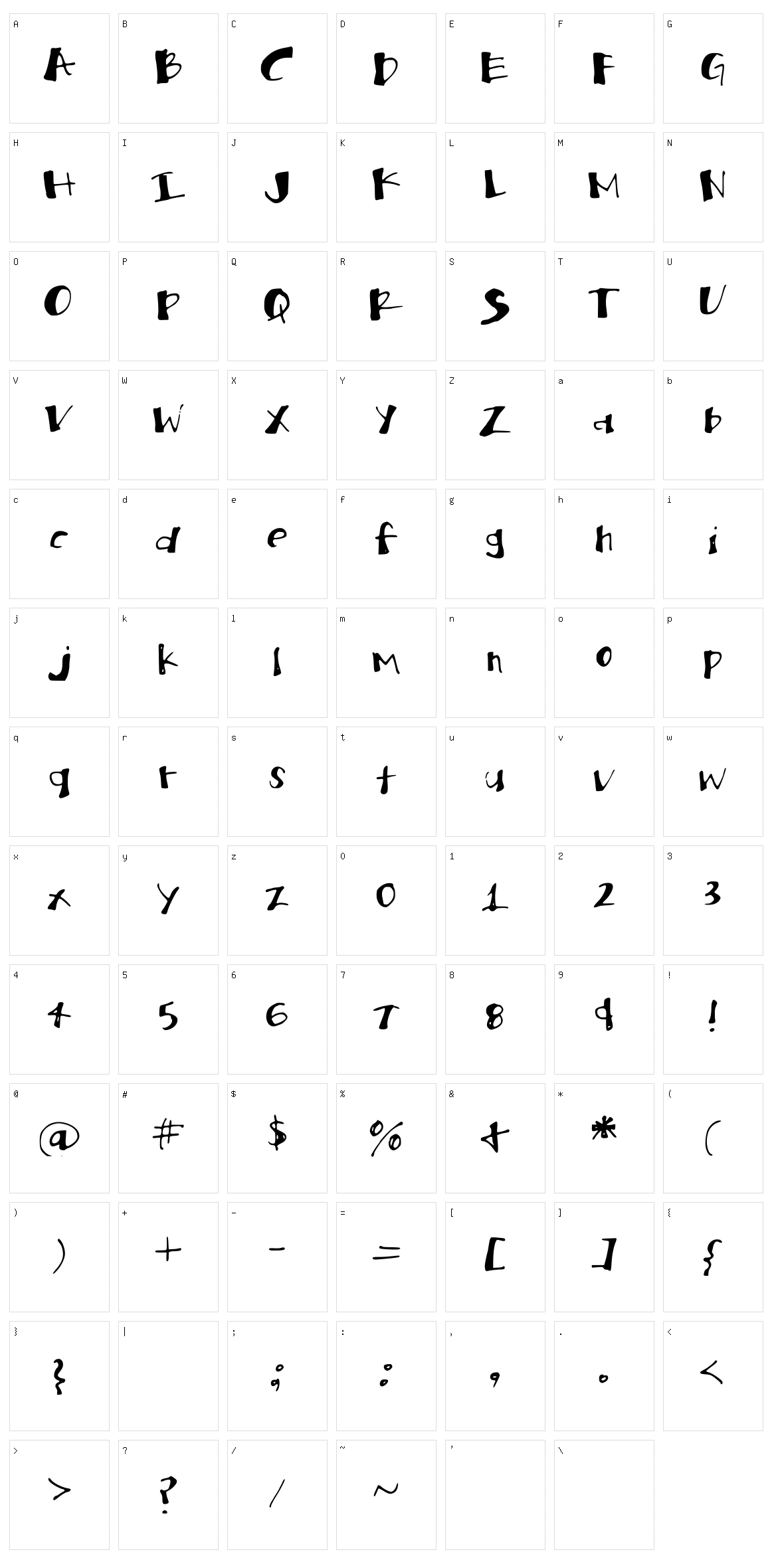
The free font Brittanblock is carefully designed by brittanelyse, showcasing a thoughtful balance of creativity and usability and falls under the Cartoon font style. When you download the ZIP file, it contains only 13.09 KB of font files, making it lightweight and quick to download. Please review the license details below to understand permitted usage and distribution rights. If license information is not available, we recommend using this font for personal projects only or contacting the author directly for commercial usage permissions.